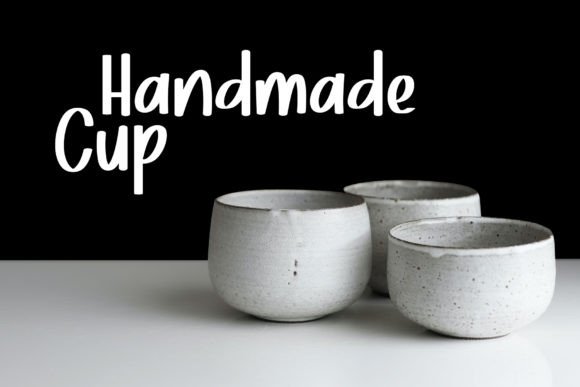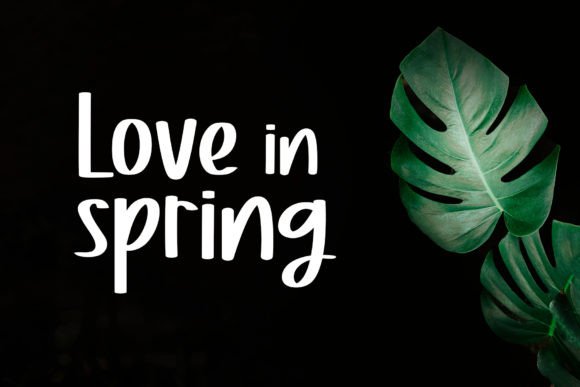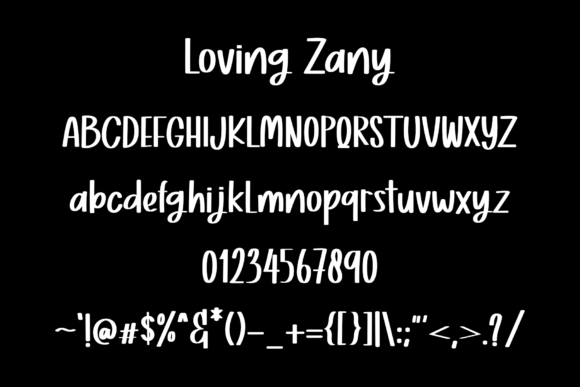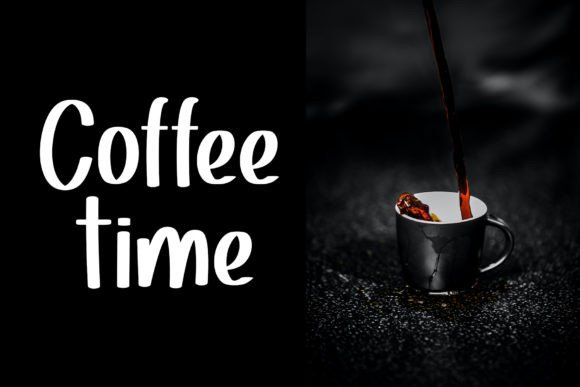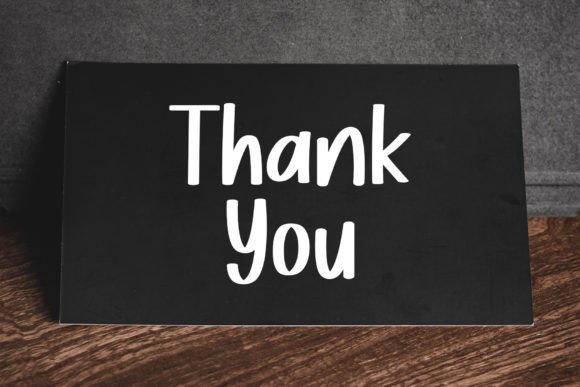
Introduction to Loving Zany Font
Remember that moment when you finally found the perfect font to bring your creative project to life? The one that made everything feel just right, like a warm hug on a cold day? For many designers, that moment is elusive, but with the Loving Zany Font, you might just find yourself smiling from ear to ear.
This beautiful, handwritten font is a treasure trove of creativity, offering a unique touch that’s both sweet and playful. Whether you’re working on a high-quality design project or simply need a design resource that’s a little more adventurous, Loving Zany Font has got you covered. With its transparent background and free download option, you can unleash your creativity without any constraints.
Key Features of Loving Zany Font
- High-quality design: Loving Zany Font is a premium design resource suitable for creative projects, offering a unique and playful aesthetic.
- Unique characteristics: The font features a zany, hand-drawn style with exaggerated letterforms and playful flourishes, adding a touch of whimsy to any design project.
- Perfect for creative projects: Loving Zany Font is ideal for use in branding, advertising, and editorial design, as well as digital projects such as social media graphics and web design.
Honest Review: Loving Zany Font
I recently stumbled upon the Loving Zany Font while searching for the perfect design resource for my creative project. I was immediately drawn to its quirky, playful vibe and couldn’t wait to dive in and see what it had to offer.
- ✨ Unique and creative character set that adds a fun touch to any design
- ✨ High-quality design that looks great on both light and dark backgrounds
- ✨ Transparent background option, making it easy to customize and combine with other elements
- ⚠️ Limited language support, which may be a drawback for designers working on international projects
- ⚠️ Some users may find the font’s irregularities a bit too quirky, so it’s essential to test it in different contexts
Overall, I’m impressed with the Loving Zany Font’s potential as a design resource. While it may not be suitable for every project, it’s a great option for those looking to add some whimsy and personality to their creative work. With a free download available, it’s definitely worth checking out.
Tips for Getting the Most Out of Loving Zany Font
Experiment with different font sizes, colors, and combinations to achieve a unique look. Use the font in conjunction with other design elements to create a cohesive and visually appealing design.
Common Use Cases for Loving Zany Font
This font is ideal for designers working on creative projects, such as graphic design, digital art, and print materials. Its versatility and high-quality design make it a valuable addition to any design resource collection.